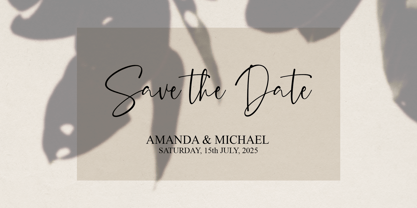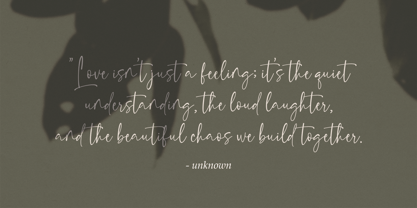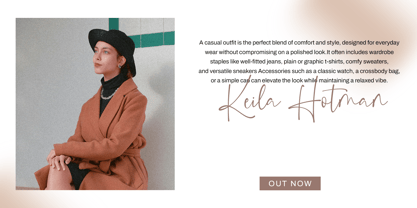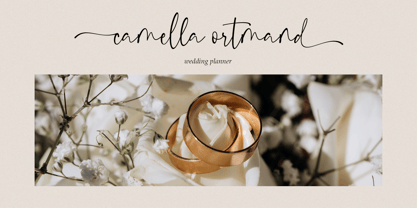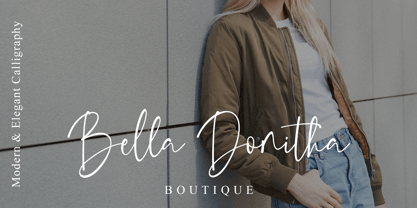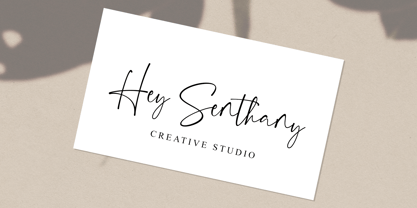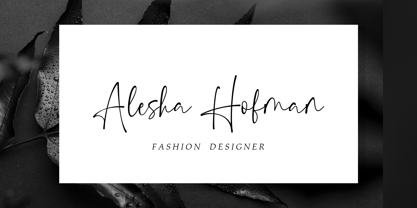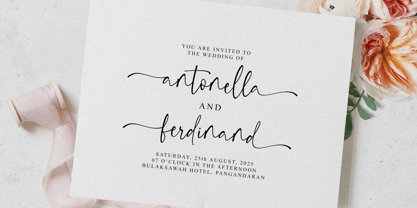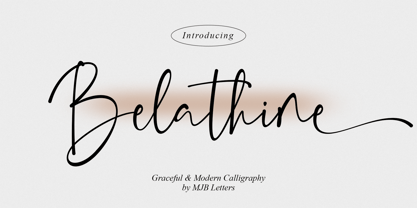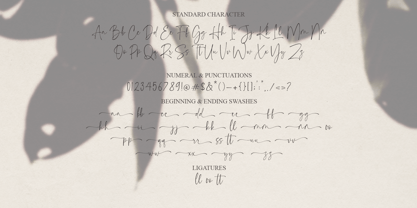
Belathine
by MJB Letters
The Belathine Font Family was designed by Muhammad Mujibulloh and published by MJB Letters. Belathine contains 1 styles. More about this family
Belathine is a stunning calligraphy font that embodies elegance, modernity, and sophistication. Designed with smooth strokes and delicate curves, this font brings a graceful and natural handwritten feel, making it perfect for various creative projects.
Perfect for:
– Branding & Logo Design
– Wedding Invitations & Stationery
– Social Media & Quotes
– Product Packaging & Labels
– Book Covers & Magazines
– Elegant Website Headers
Features:
– Modern & Chic Calligraphy Style
– Smooth Flowing Handwritten Look
– Beautiful Ligatures & Alternates
– PUA Encoded & Multilingual Support
Let Belathine add a touch of class and sophistication to your next project.